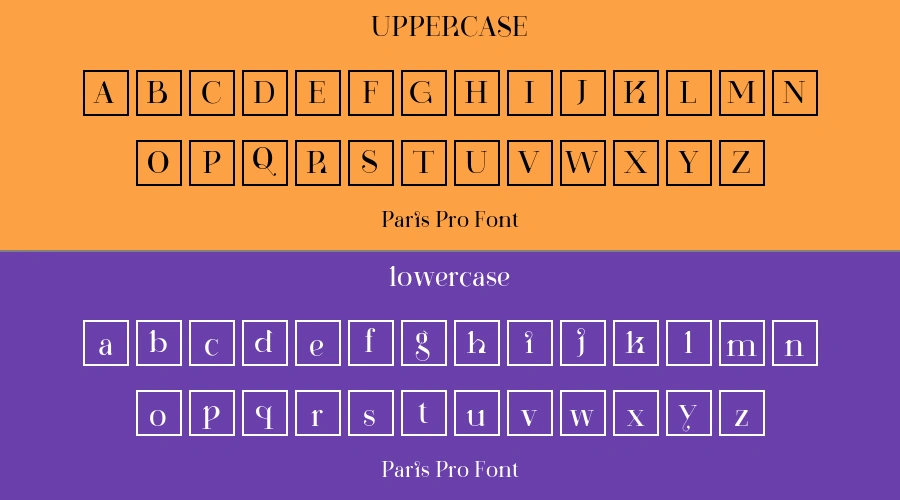
About Paris Pro Font
Paris Pro Font stands out for its distinctive combination of high x-height and tradition. Ideal for poster titles, it provides the versatility and brand alignment that professional projects demand. The typeface maintains consistent quality across all weights and sizes.
Key features include refined exaggerated serifs and practical connecting forms, enhancing typographic expression. In campaign headers applications, Paris Pro Font demonstrates exceptional color application. The shoulder shape and institutional acceptance contribute to its distinctive character and professional appeal.